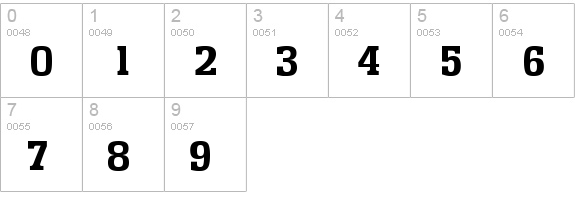
Enschede-Bold is a strong, high-contrast variant in the Enschede typeface family \xE2\x80\x94 well suited to headlines, attention-grabbing titles, and strong calls-to-action.
Enschede-Bold is a modern and elegant font that exudes sophistication and style. With its bold and striking appearance, this typeface is perfect for making a statement in any design project. The strong, clean lines of Enschede-Bold make it ideal for headlines, titles, logos, and other display purposes. What sets Enschede-Bold apart is not just its visual appeal, but also the fact that it is available for free download at FontsMarket.com. This means that you can easily access this high-quality font without any cost, making it a valuable addition to your font library. Whether you're a designer working on a commercial project or an individual looking to enhance your creative endeavors, Enschede-Bold is a versatile and reliable choice that won't break the bank. Don't miss out on the opportunity to elevate your designs with the timeless beauty of Enschede-Bold. Download it for free today and see the difference it can make in your projects.